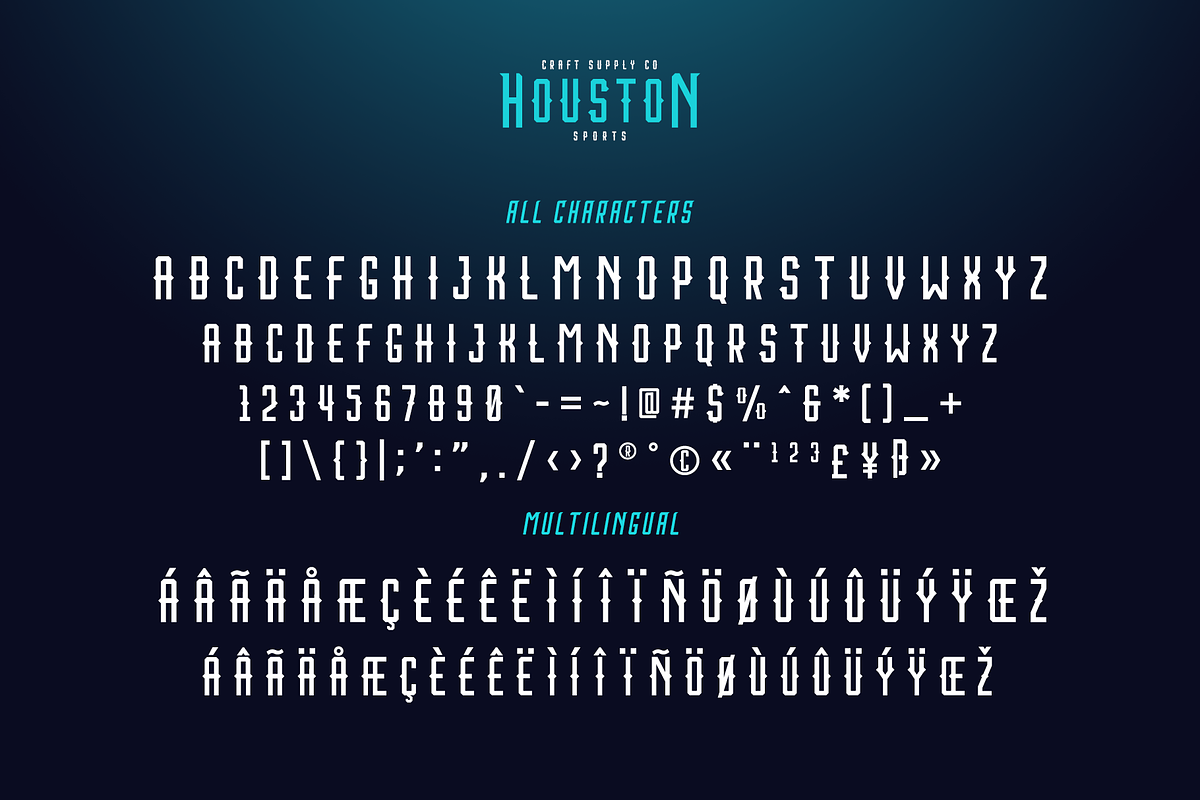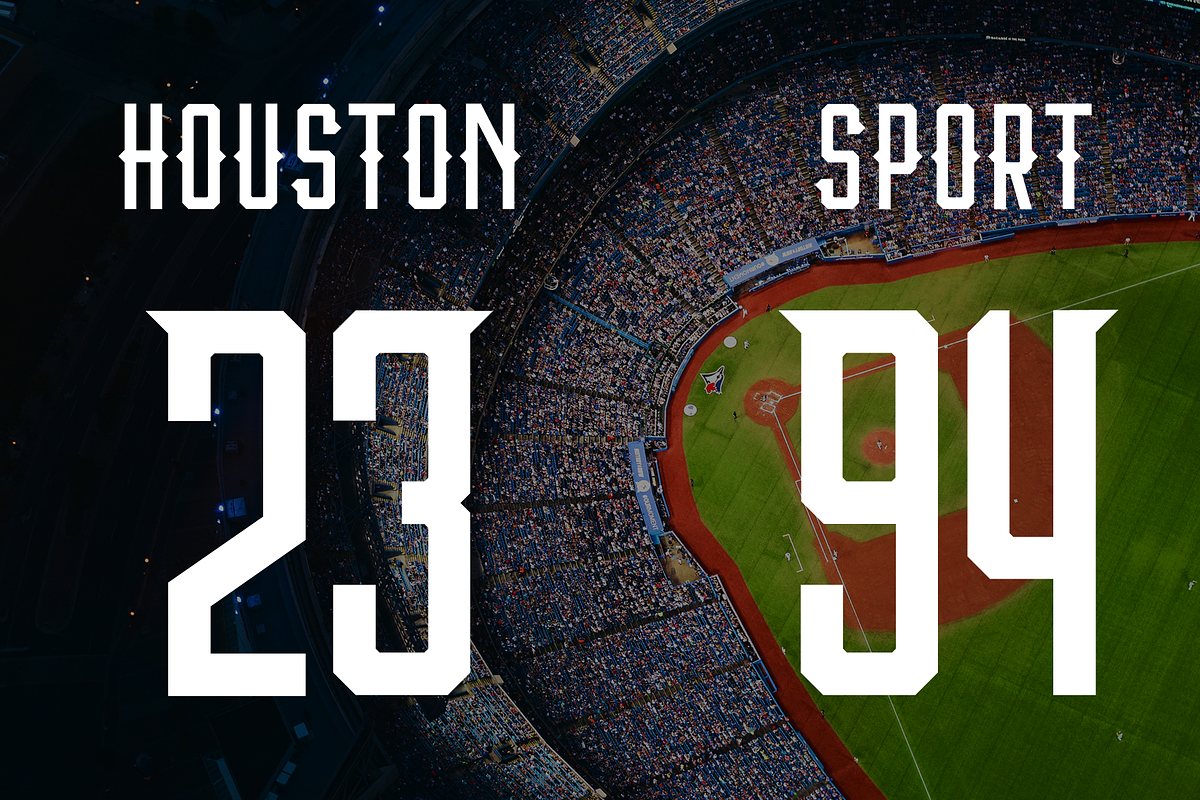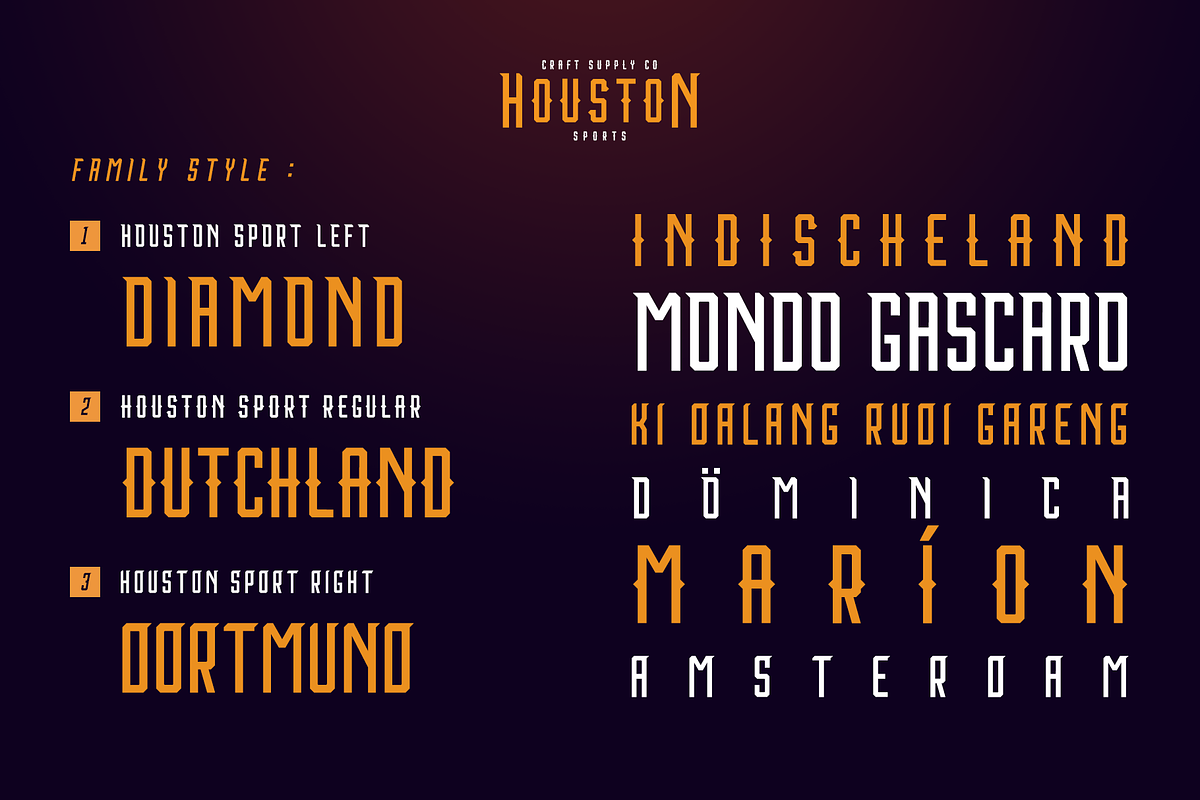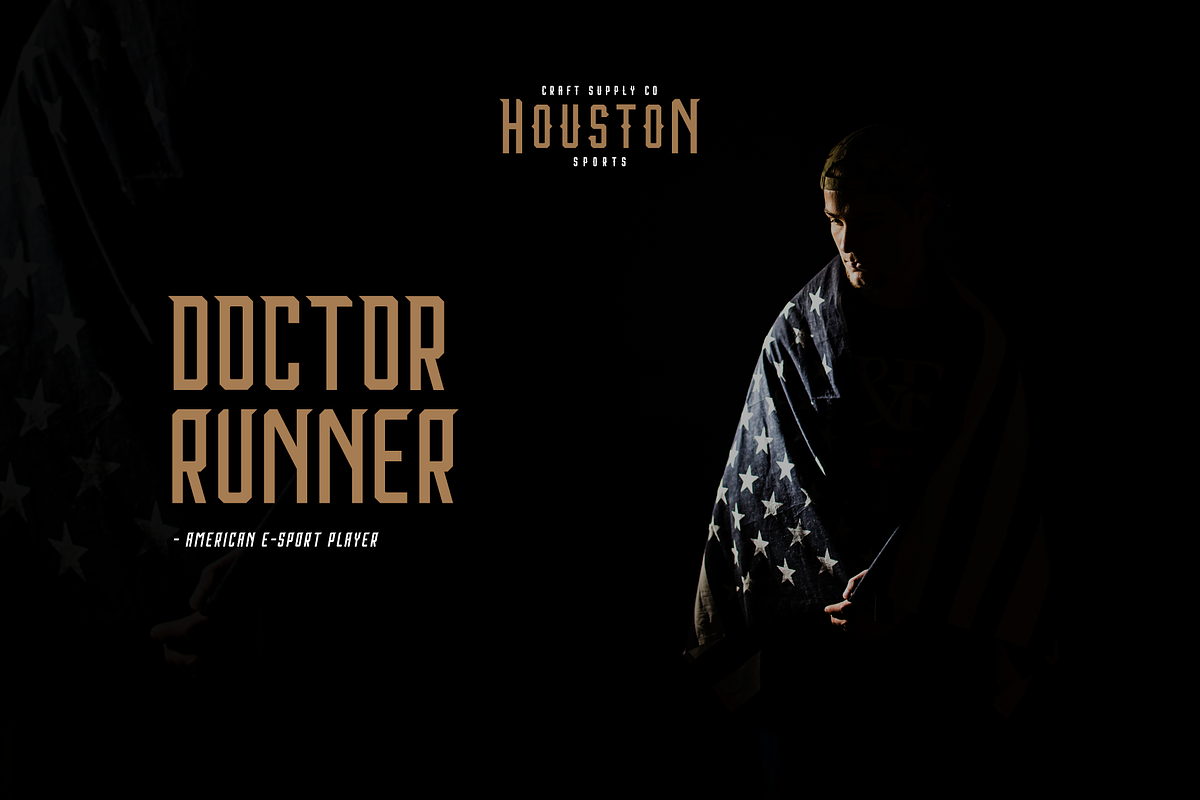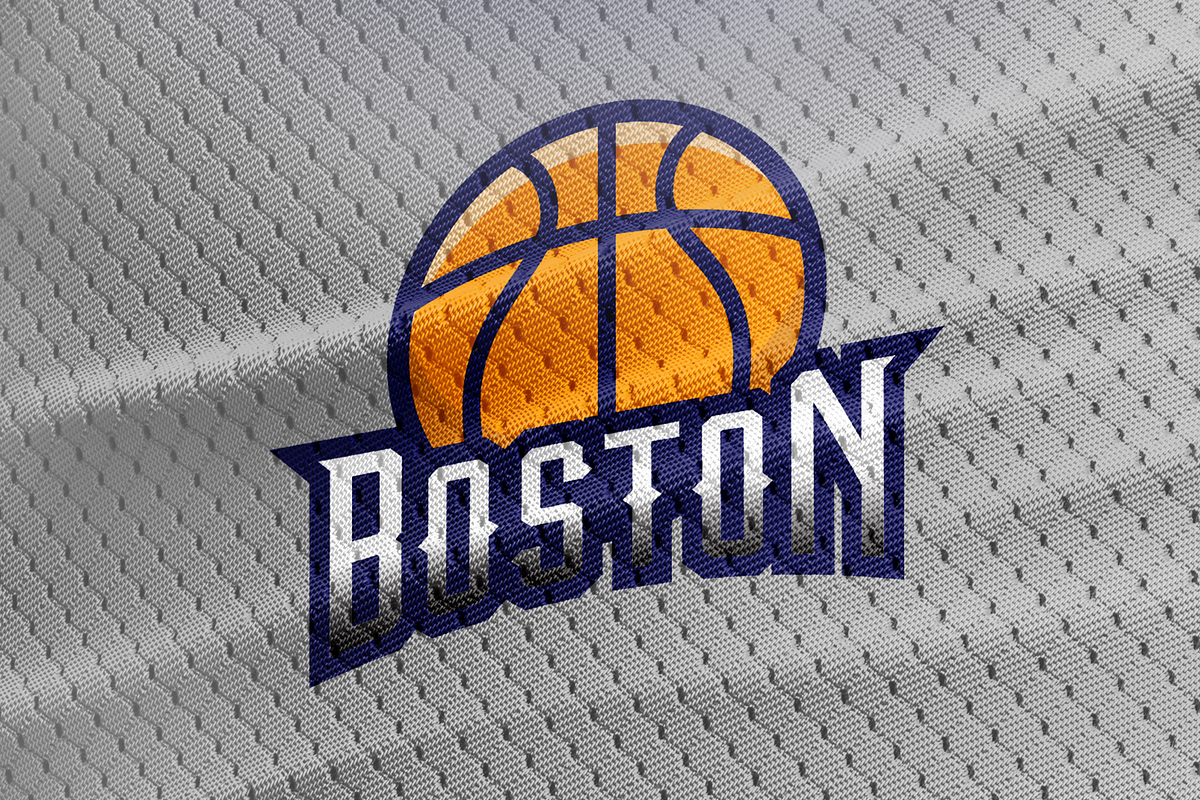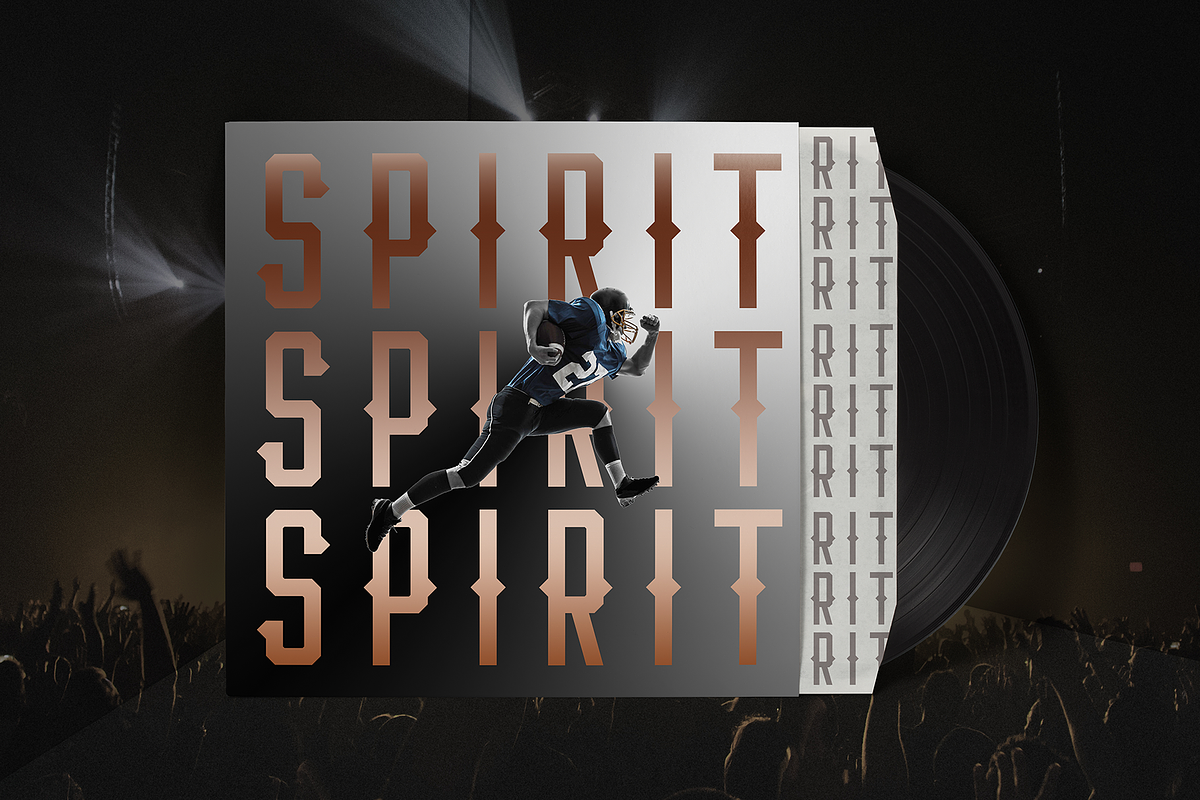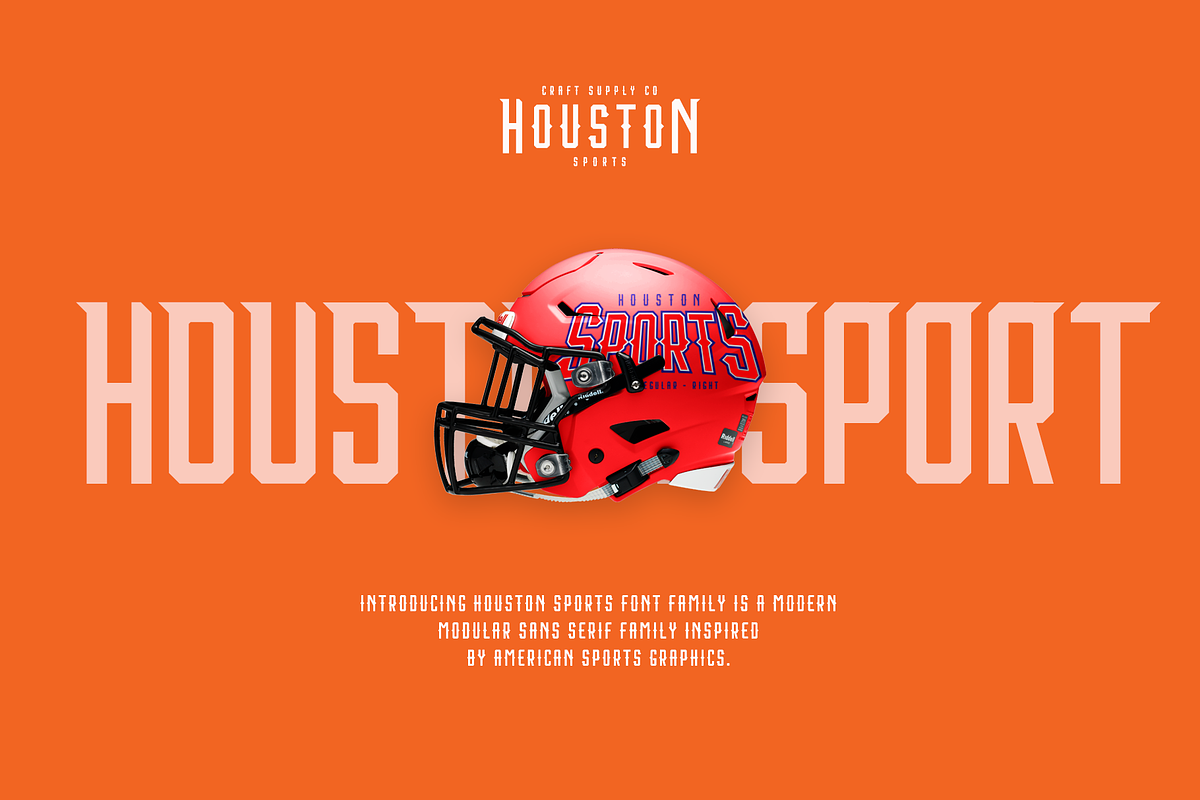
Houston Sports Font Family
Introducing new font Houston Sports Font Family comes with 3 style of font
Houston Sports Font Family is a modern modular display font family inspired by American sports graphics. Houston Sports Font Family is based on the compact solid font, by combining a variety of styles. Suitable for Logo especialy logo sports, greeting cards, quotes, posters, branding, name card, stationary, design title, blog header, art quote, typography.